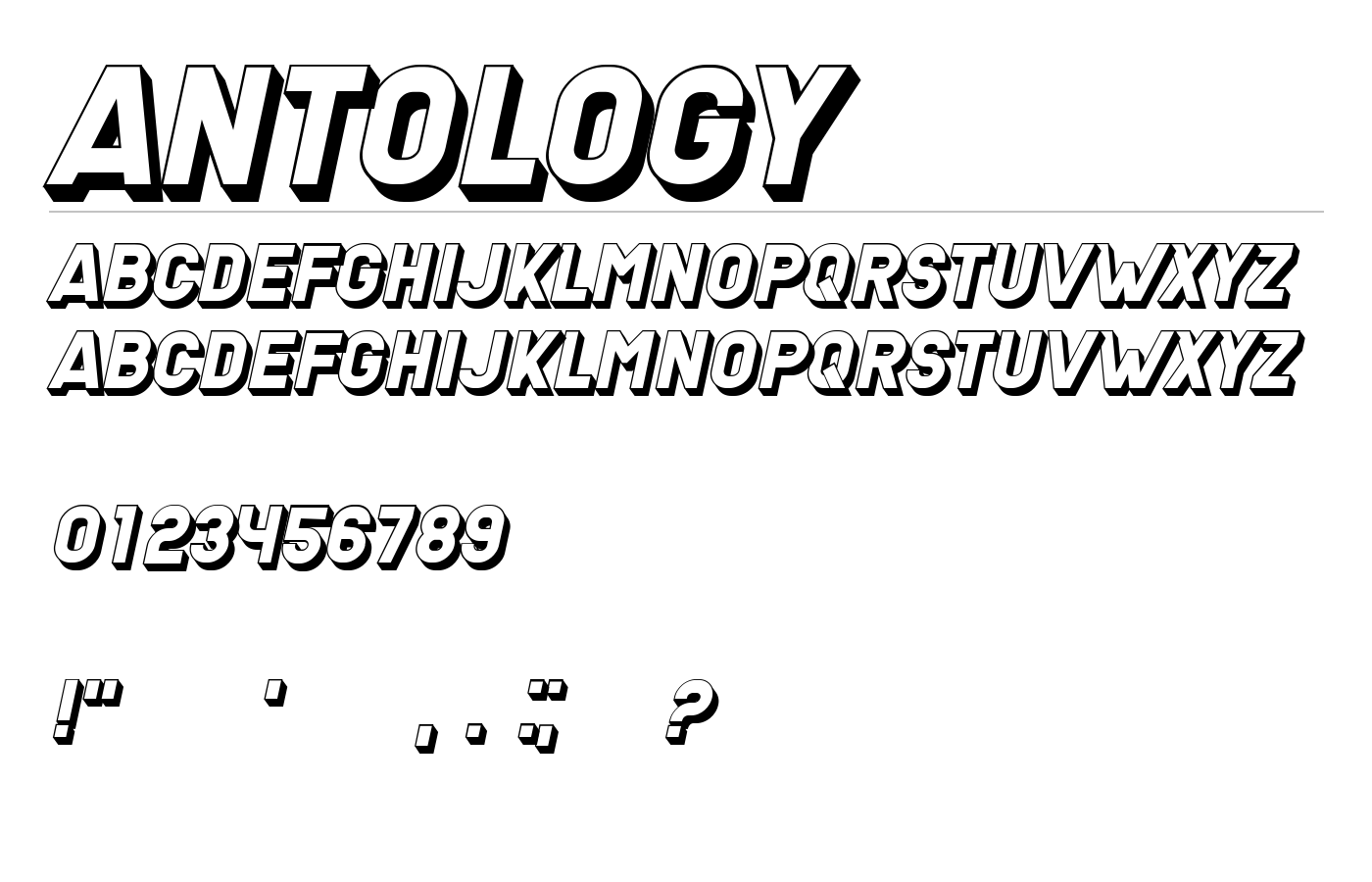
Antology is a bold, condensed sans serif font with a dynamic 3D shadow effect that adds depth and a sense of motion. Its clean, geometric letterforms combined with a strong slant give it a modern, energetic feel, making it perfect for striking headlines, logos, and posters where impact and style are key. This font works well for brands seeking a contemporary, playful vibe with a touch of boldness and personality.
Antology Font
About Antology Font
| Font family | Antology Font |